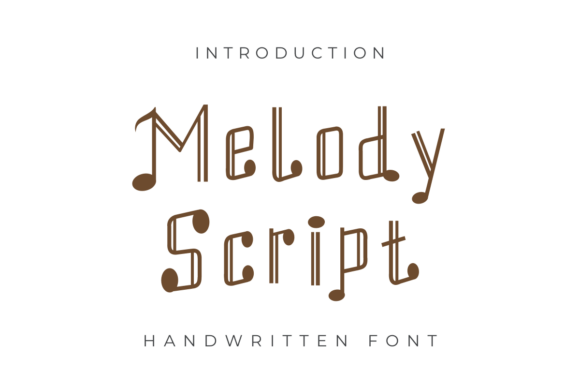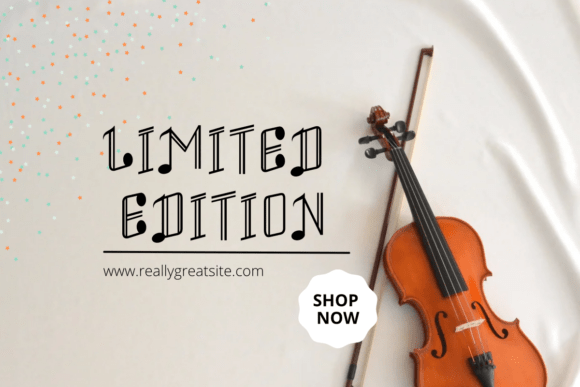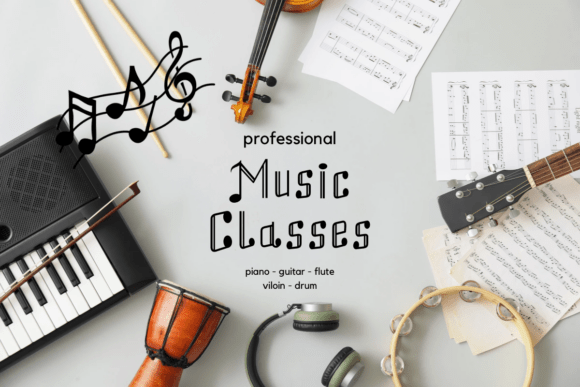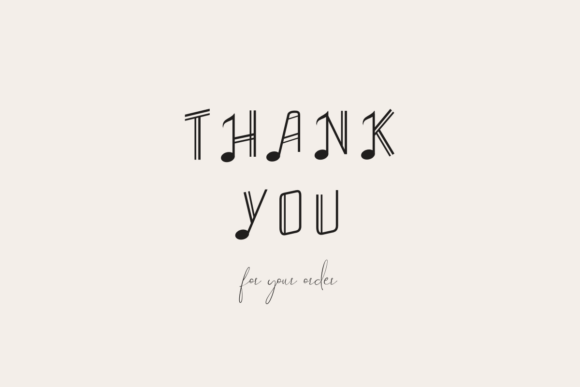
Melody Script Font
About the Melody Script Font
Explore the possibilities with Melody Script Font, a font that offers both beauty and functionality. Melody Script is a creative and unique handwritten font inspired by the rhythm and flow of music. With its elegant letterforms featuring musical note details, this font is perfect for music-themed designs, concert posters, invitations, branding, and artistic projects. Whether you’re composing a visual masterpiece or designing for a musician, Melody Script will add a harmonious and stylish touch.
Melody Script’s elegant yet playful nature makes it ideal for headlines, short text blocks on invitations or packaging, and logos requiring a touch of whimsical sophistication. It excels in projects emphasizing creativity and artistry, such as branding for music venues, boutique shops, or artisanal food products. Avoid using it for body text or lengthy paragraphs; its delicate forms are less legible at smaller sizes.
Pairing Melody Script with a clean sans-serif like Open Sans for body copy creates a strong visual hierarchy, while a classic serif like Garamond provides a sophisticated counterpoint. For a more modern feel, consider pairing it with a geometric sans-serif such as Montserrat.
The font’s overall personality is best described as elegant and playful, balancing sophistication with a lighthearted charm. This makes it well-suited for brands aiming for a memorable and stylish yet approachable image.
Melody Script Font Usage Examples
Melody Script Font Example